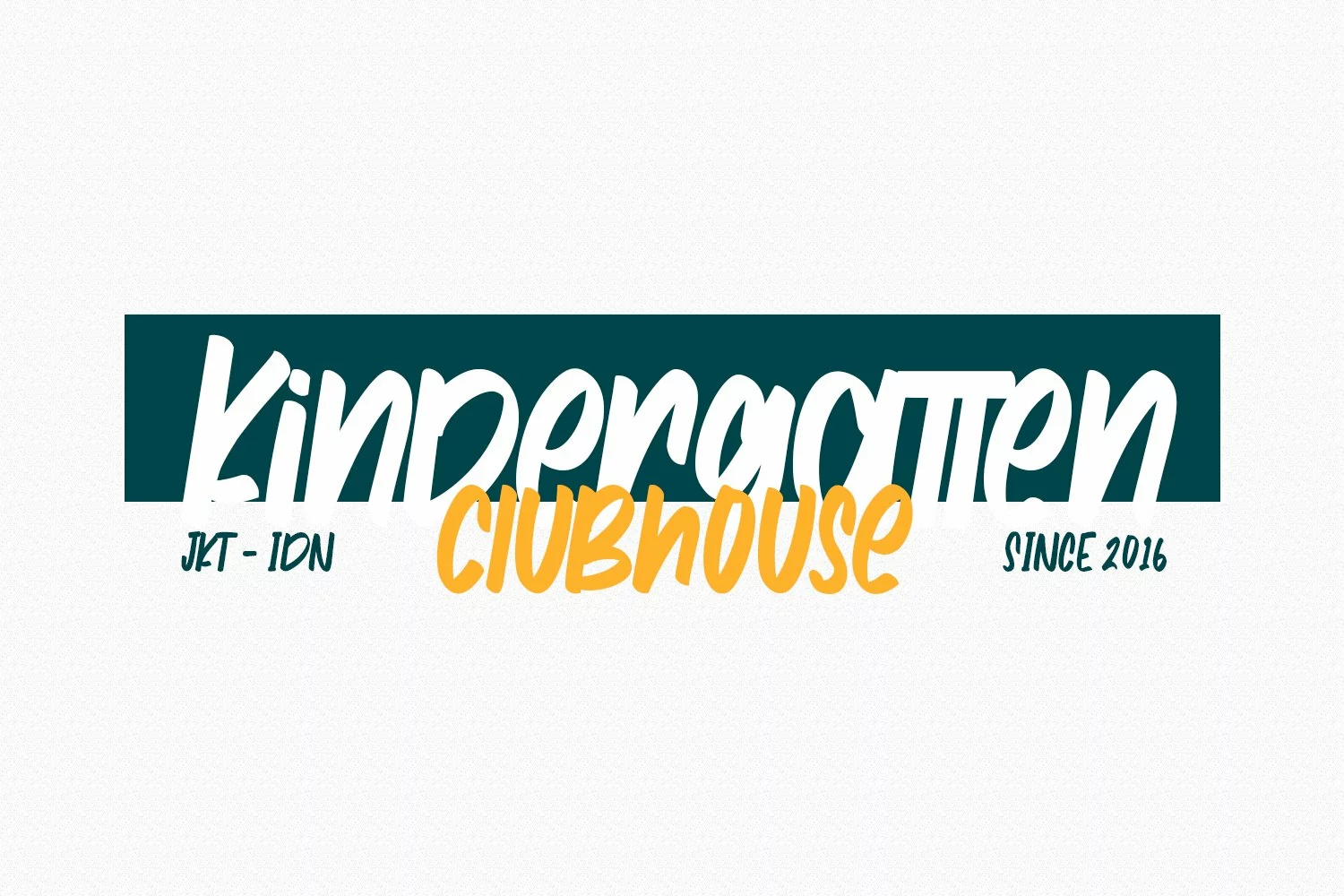
Hilofi Lavoris is an 80's retro sign painting style font. With bold stroke, italic and fun character with a bit of ligatures. To give you an extra creative work. Hilofi Lavoris font support multilingual more than 100+ language. This font is good for logo design, Social media, Movie Titles, Books Titles, a short text even a long text letter and good for your secondary text font with sans or serif. Make a stunning work with Hilofi Lavoris font.